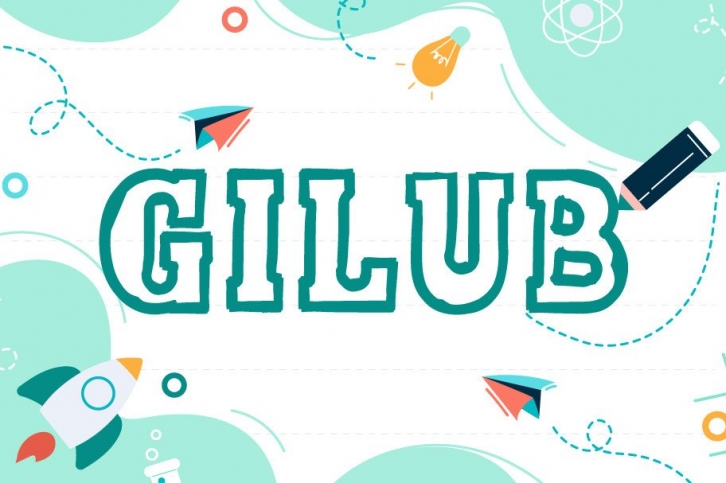
Gilub is a cool, bold and outlined display font. It is ideal for writing web designs, business cards, or pretty much anything else that requires a unique touch.